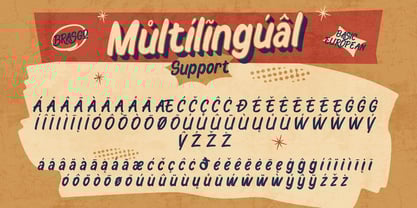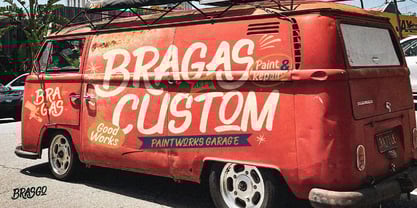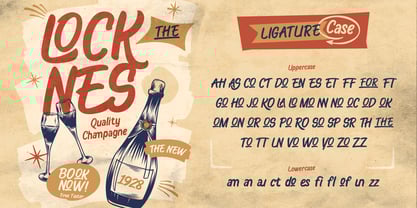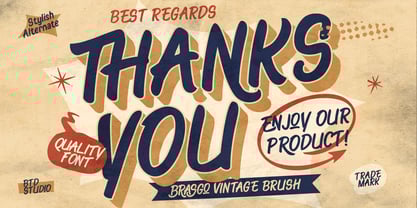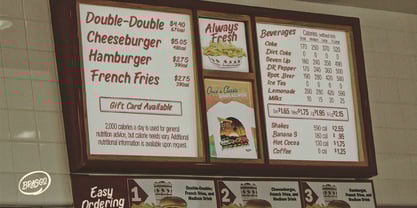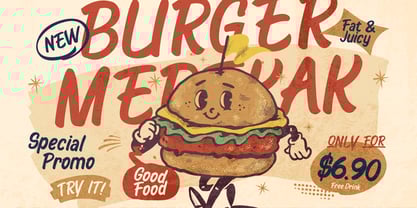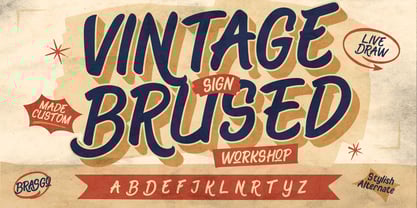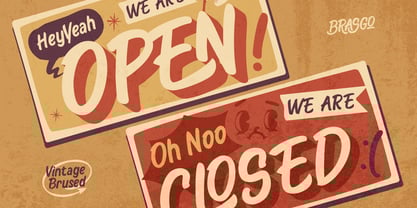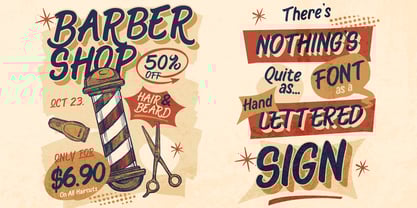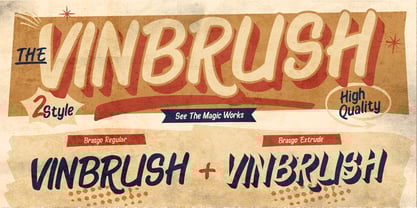
Brasgo
Die Schriftfamilie Brasgo wurde von Eric Kurniawan entworfen und von Burntilldead veröffentlicht. Brasgo enthält 2 Stile und Familienpaketoptionen.
Say hi to Brasgo, a vintage sign brush-style font that brings a perfect mix of classic and vintage vibes! With its thick strokes and slightly wavy look, Brasgo gives off a unique retro feel, taking you back to the good old-school days.
This font comes in two styles: Regular and Extrude, making it super versatile for your creative projects. Whether you’re working on branding, posters, invitations, or promo materials, Brasgo will help your designs stand out effortlessly.
Plus, with its alternates and ligatures, you get extra creative freedom to craft stunning typography with ease. If you're looking for a fun, vintage-inspired brush font, Brasgo is the way to go!